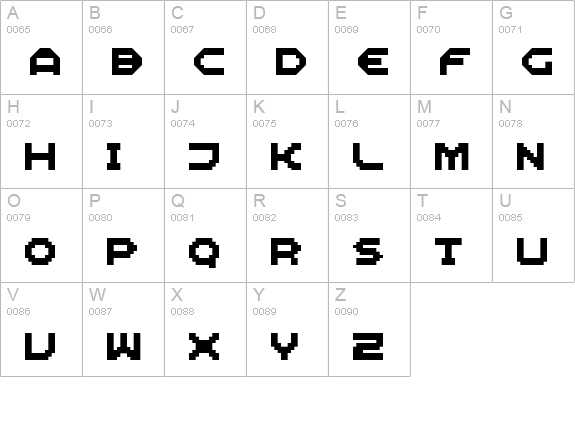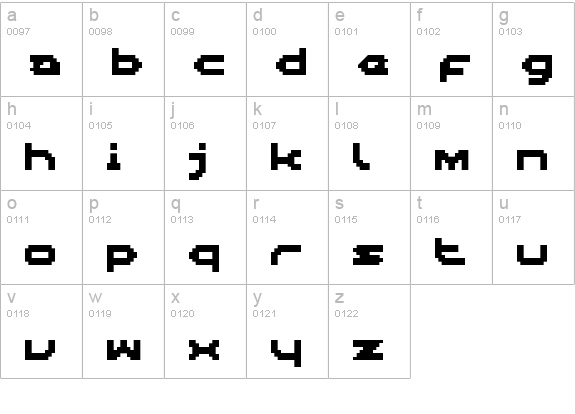
superboy Font Details
Superboy font is a stylish and modern typeface that exudes youthful energy and creativity. With its bold and dynamic letterforms, Superboy is perfect for making a statement in any design project. This font is versatile and can be used for various purposes, from branding to headlines to social media graphics. The best part? Superboy font is completely free to download at FontsMarket.com. So go ahead and add this eye-catching font to your collection without breaking the bank. Let your creativity shine with Superboy font and make your designs stand out from the crowd.